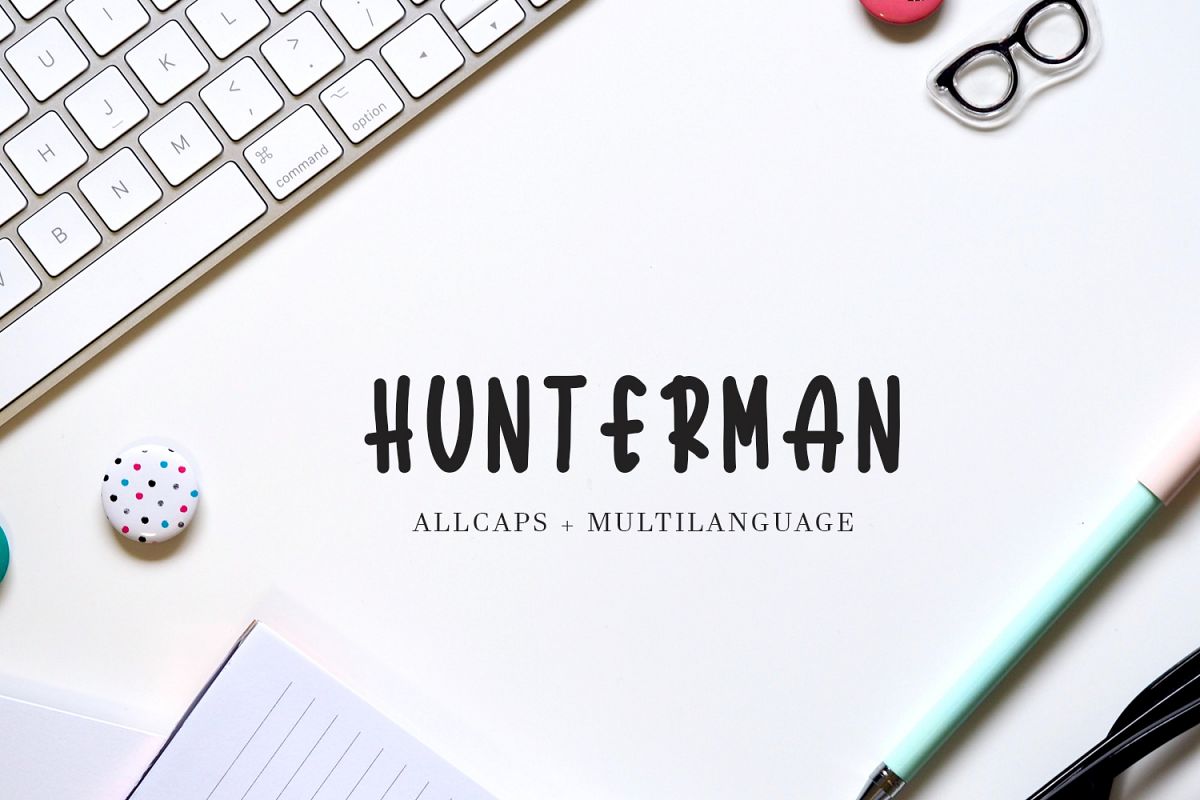
Hunterman Font
Hunterman
Introducing Hunterman Typeface a rounded vintage monoline. Hunterman is clean modern-vintage display font which inspired from old school letterpress